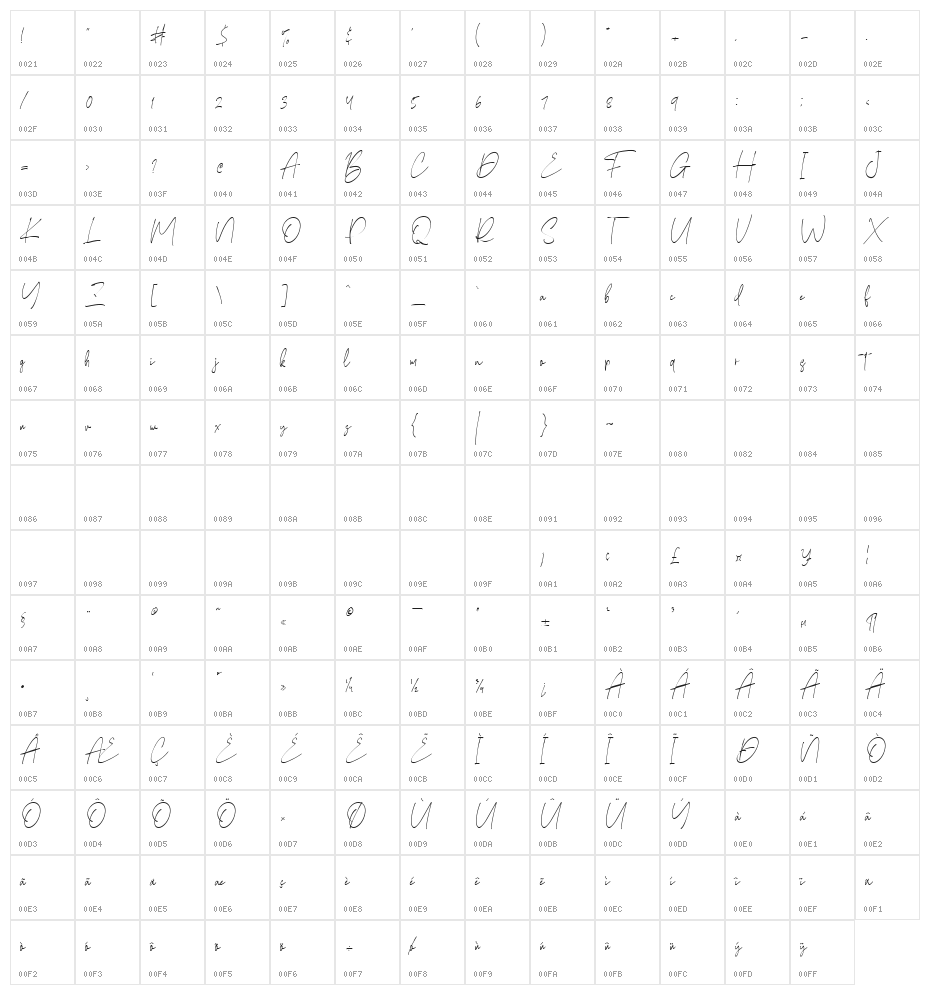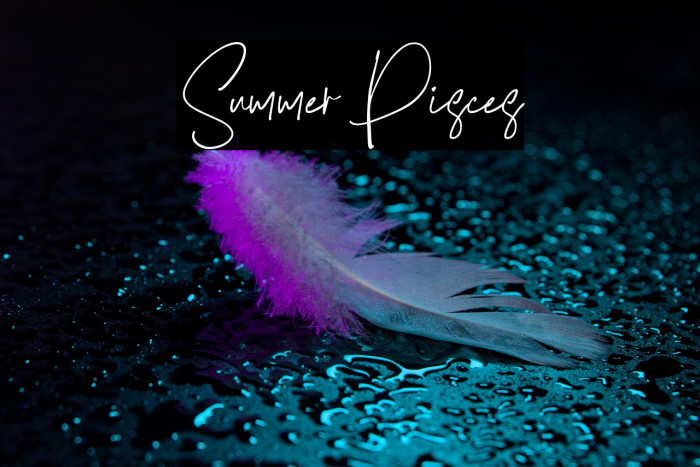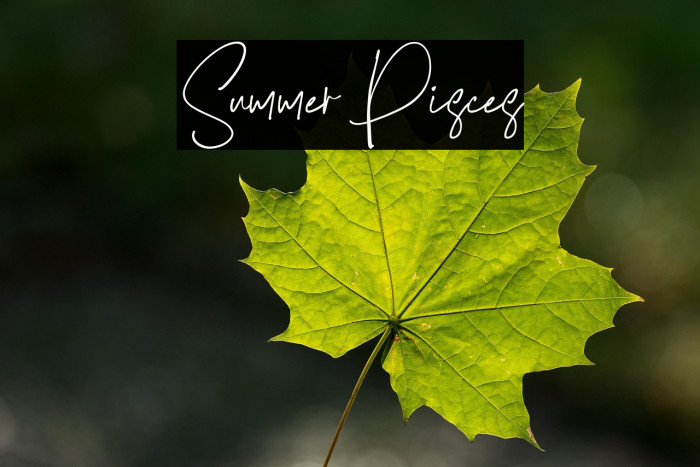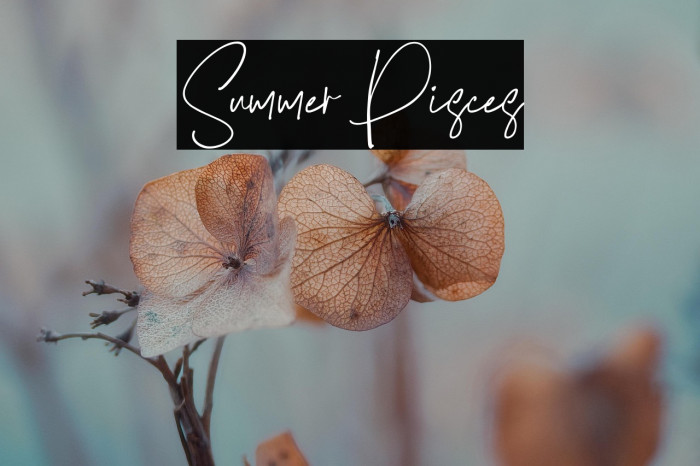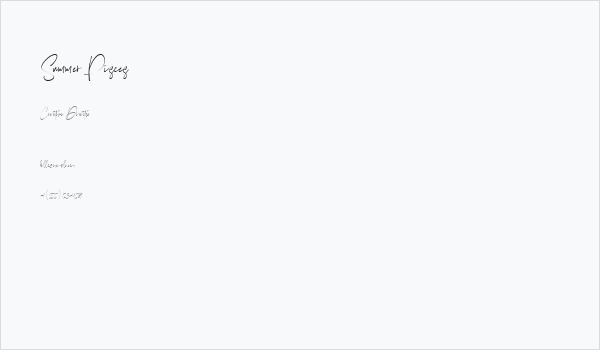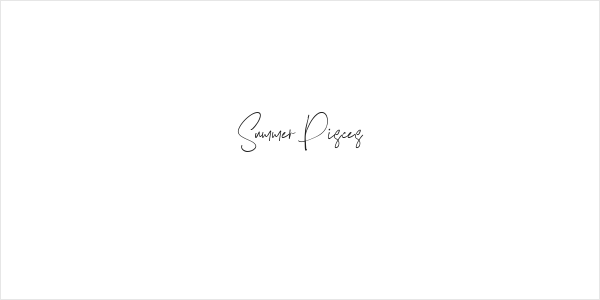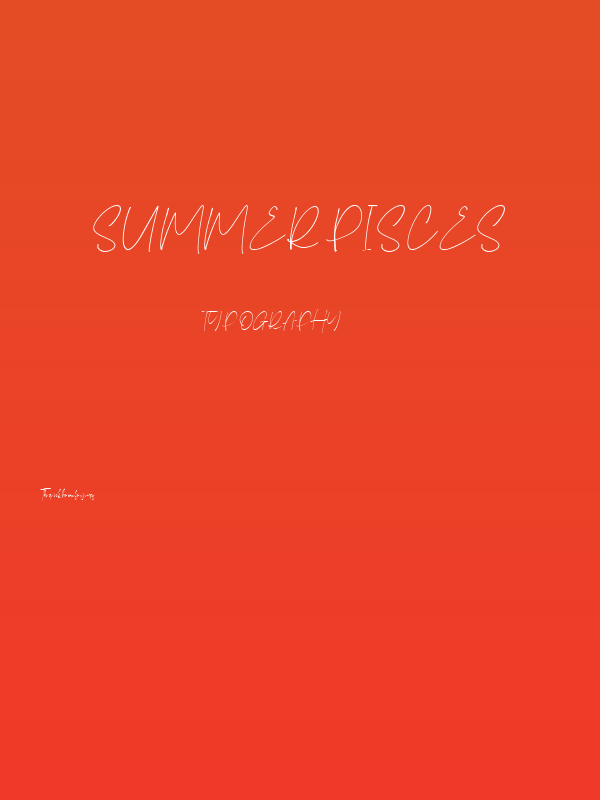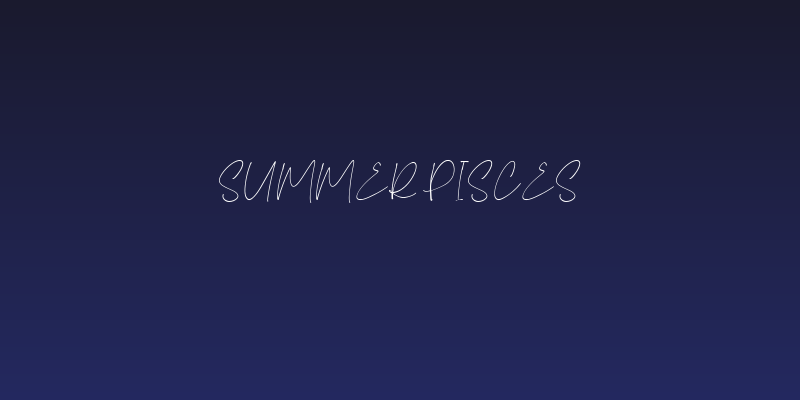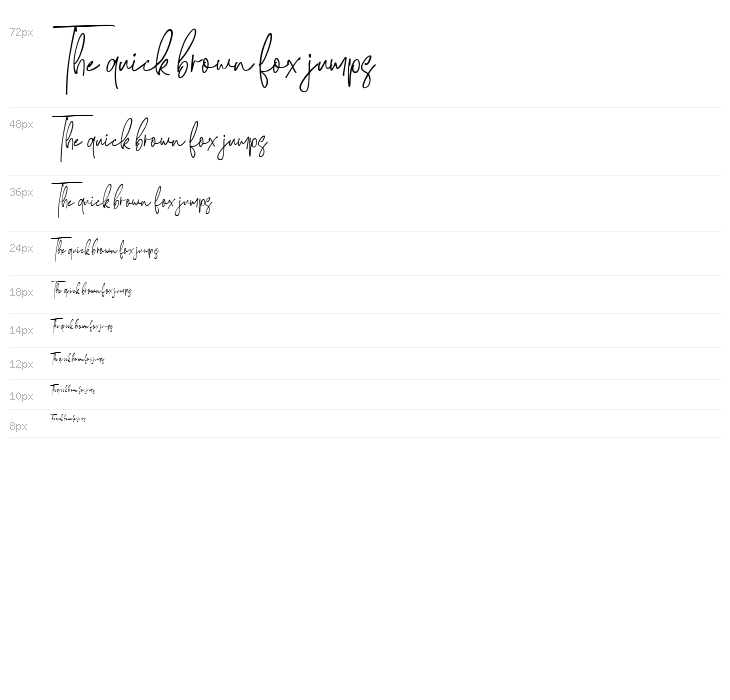
Summer Pisces Font
Summer Pisces Description
This font exudes a casual, handwritten style with a touch of elegance. The letters are fluid and connected, resembling natural handwriting with a slight slant, giving it a personal and intimate feel. The uppercase letters are tall and slender, while the lowercase letters maintain a consistent flow, enhancing readability. The numerals are distinct yet harmonious with the overall style, and the special characters are crafted to match the handwritten aesthetic. This font is perfect for projects that require a personal touch, such as invitations, greeting cards, or branding materials that aim to convey warmth and authenticity.
| Overall Style | Casual, Elegant |
| Proposed Projects | Ideal for invitations, greeting cards, personal branding, and creative projects. |